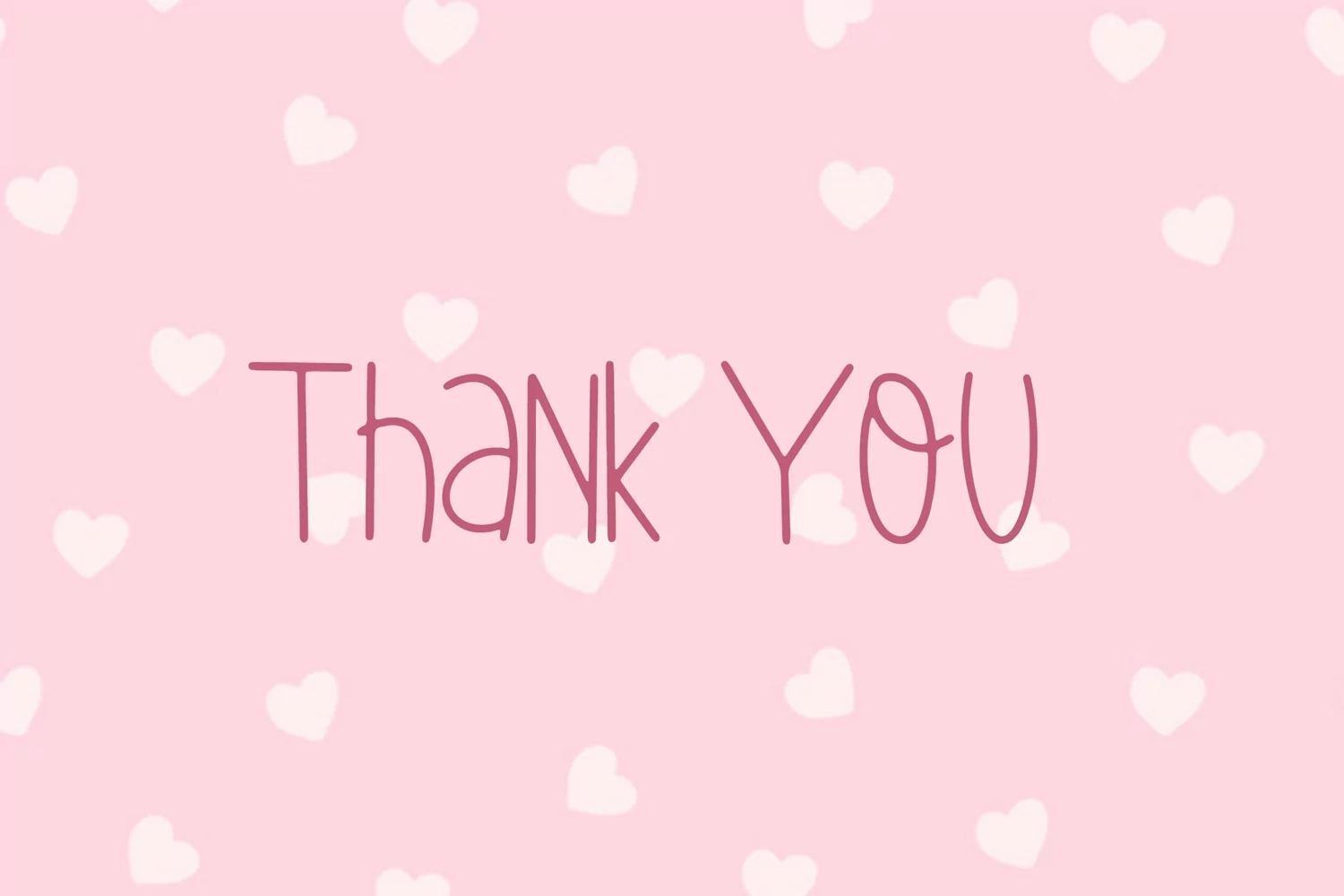
Seolinea is a cute, sweet, and friendly handwritten font. Its natural and unique style makes it incredibly fitting to a large pool of designs. The only limit is your imagination!
Seolinea